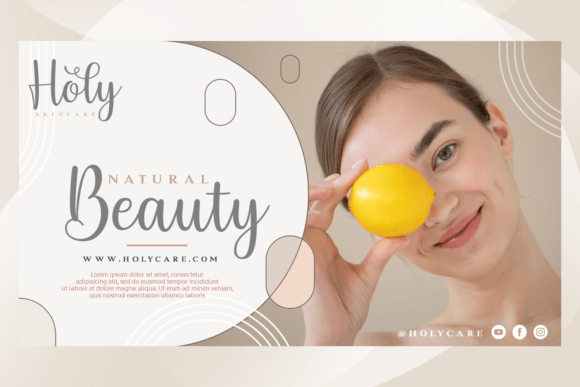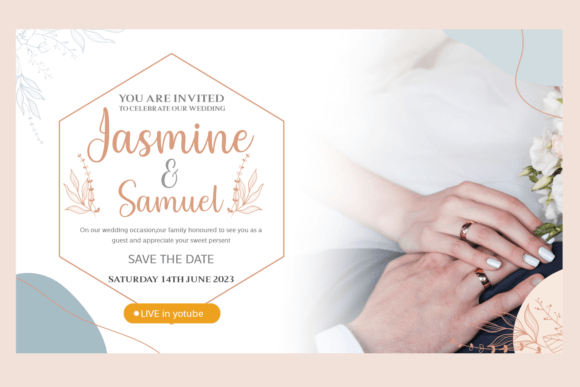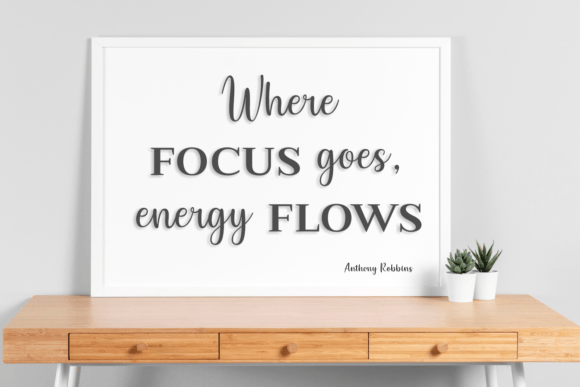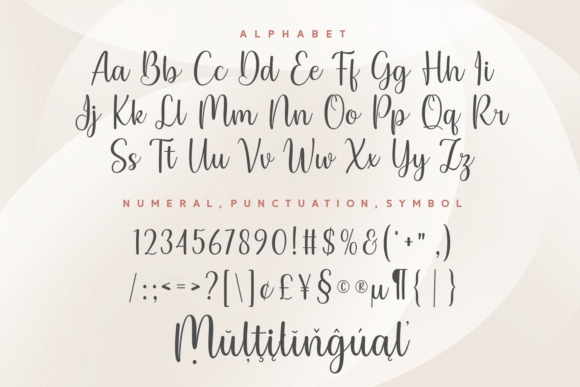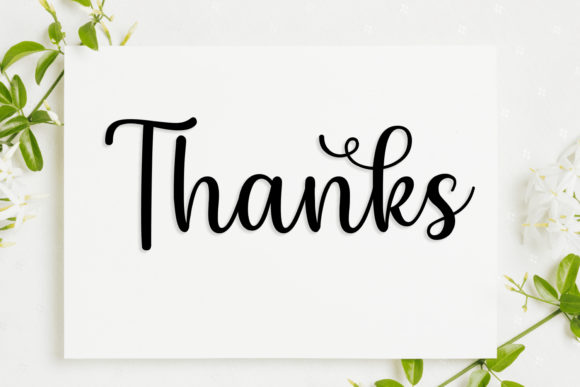
The Elegance of Distone Font: A Designer’s Delight
I’ll never forget the time I was working on a wedding invitation project, and my client asked for a font that exuded elegance and sophistication. I scoured the internet, tried countless fonts, but nothing seemed quite right. That was until I stumbled upon Distone Font. It was love at first sight! 💕 The beautiful, flowing script and intricate details instantly captured the essence of what my client was looking for. In this article, I’ll share my experience with Distone Font, its features, and how to make the most of it in your designs.
An Honest Review of Distone Font
- ✨ Elegant and stylish script font perfect for high-end projects
- 💫 Beautiful, authentic-looking typography that stands out
- 🎨 Highly versatile, suitable for invitations, business cards, logos, quotes, and more
While Distone Font is an excellent choice, there are a few things to keep in mind:
- ⚠️ Some users may find the font a bit challenging to read in large blocks of text
- 🤔 Limited availability of certain characters or symbols, but this can be overcome with glyph exploration
- Experiment with OpenType features, such as swashes and stylistic alternates, to add personality to your design
The Story Behind Distone Font
Distone Font was created with the intention of bringing elegance and sophistication to the world of typography. Its designer drew inspiration from classic calligraphy and refined it for modern use. The result is a font that’s both timeless and trendy.
| What is Distone Font best used for? | Distone Font is perfect for projects that require elegant and authentic-looking typography, such as invitations, business cards, logos, and quotes. |
| Is Distone Font PUA encoded? | Yes, Distone Font is PUA encoded, making it easy to access all the glyphs and swashes. |